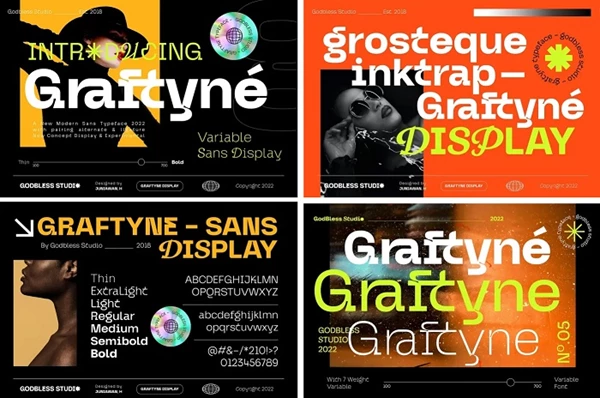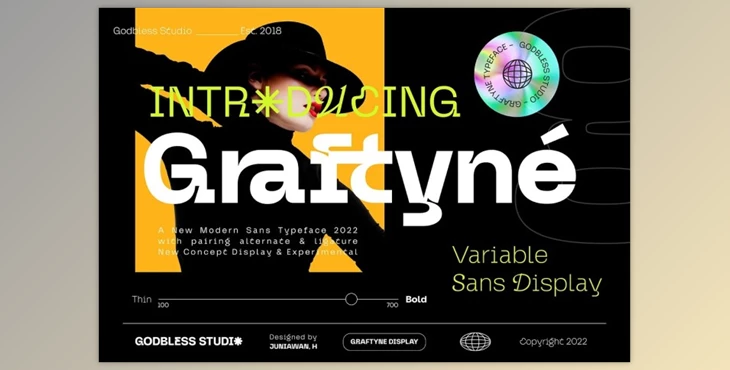
Graftyne Sans Serif Typeface is a dynamic font family influenced by vintage aesthetics, designed to evoke emotion and accessibility in design.
This experimental font features angular elements, ink traps, and display variations, enhancing its uniqueness and appeal.
With seven weights from light to bold, Graftyne offers versatility and visual impact, making it ideal for diverse display applications that require standout typography.